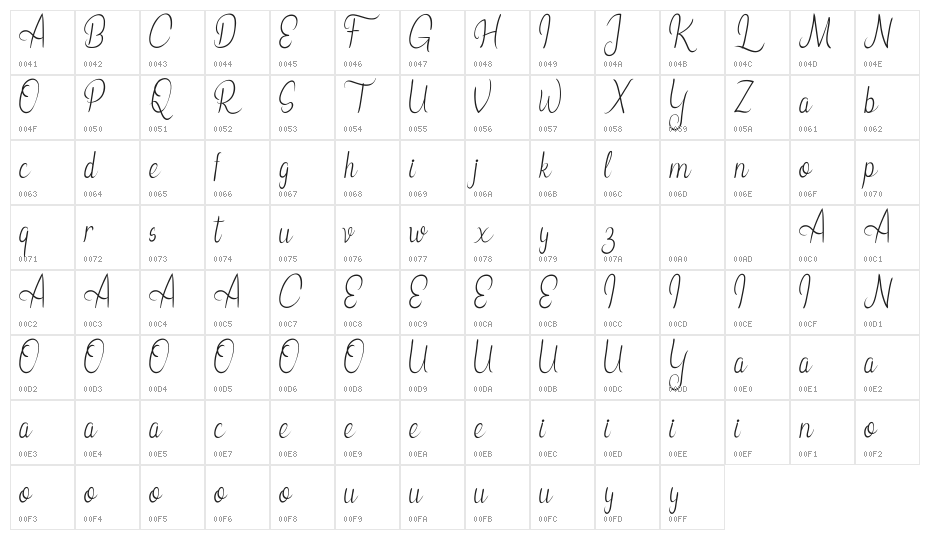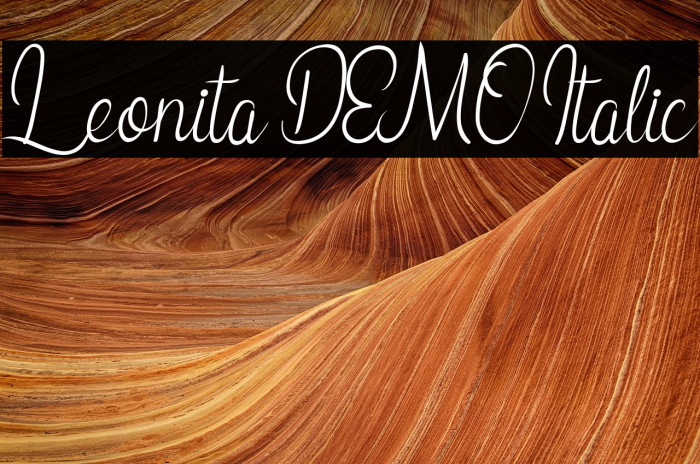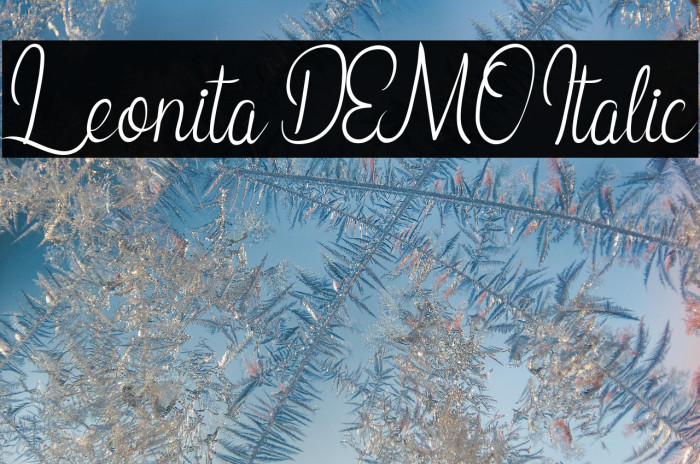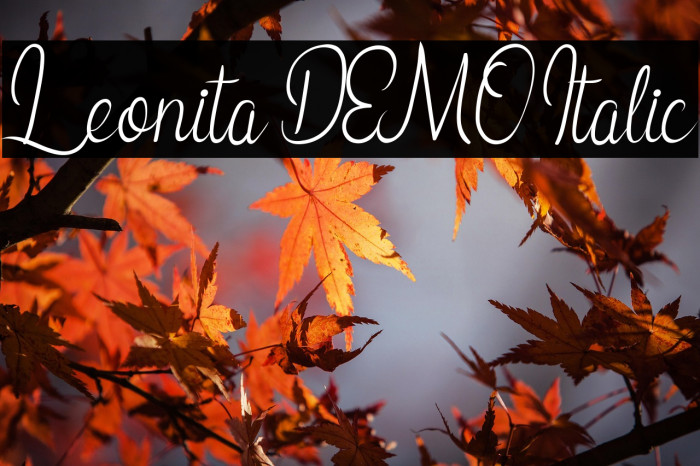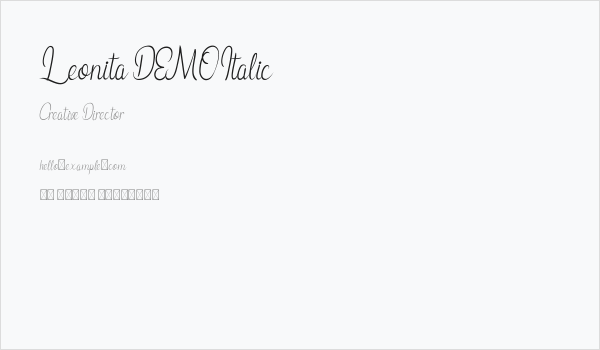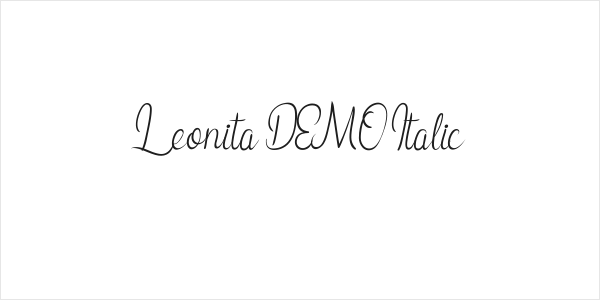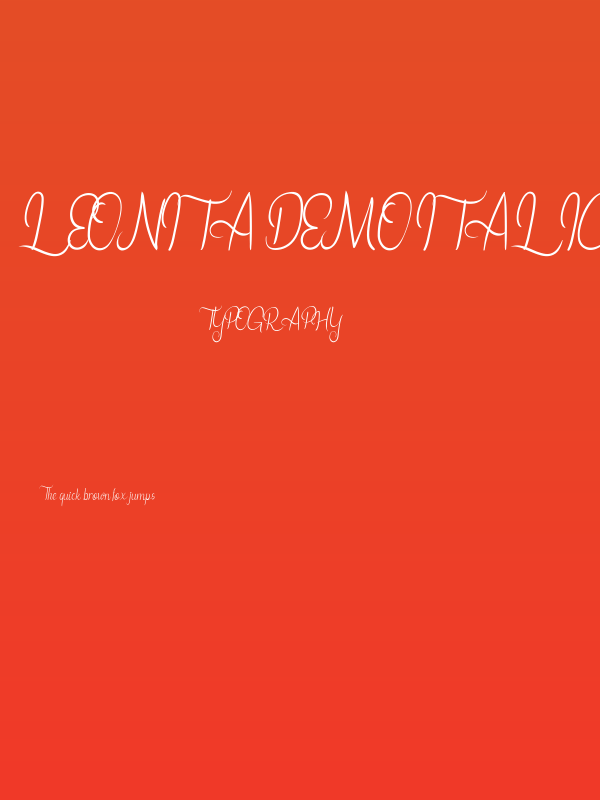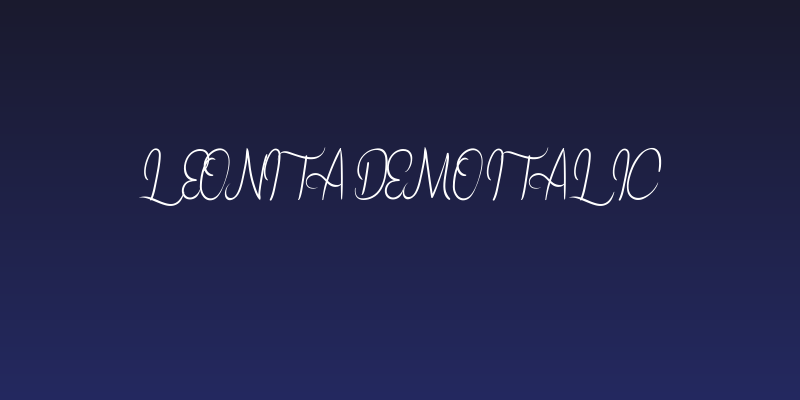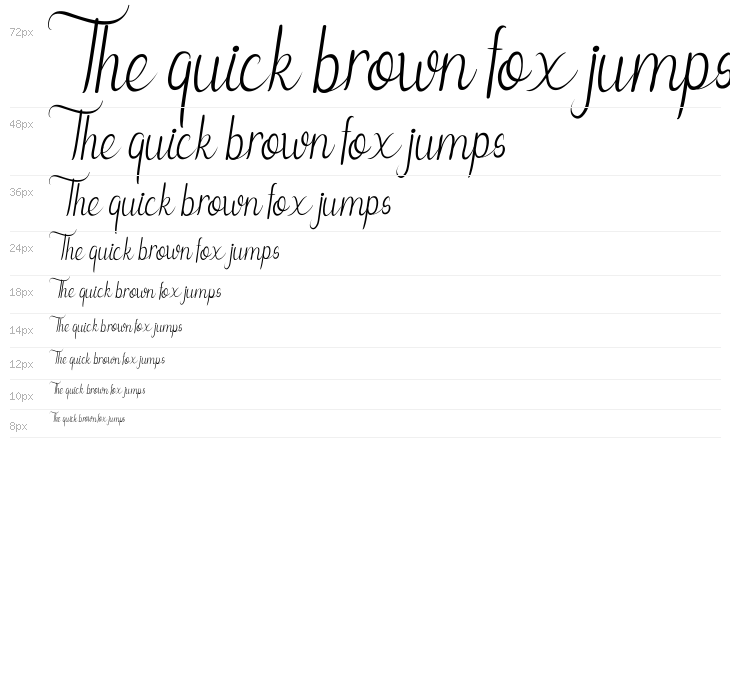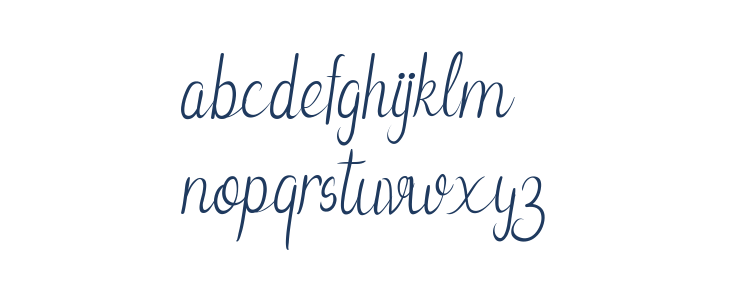
Leonita DEMO Italic Font
Leonita DEMO Italic Description
This elegant script font features a flowing, cursive style with a sophisticated and graceful appearance. The characters are connected, creating a seamless and fluid look that is both stylish and legible. The uppercase letters are tall and slender, with delicate loops and swirls that add a touch of flair. The lowercase letters maintain a consistent flow, with smooth curves and subtle variations in stroke width. The font's italic nature enhances its dynamic and lively feel, making it suitable for a variety of creative applications. Its overall design exudes a sense of refinement and charm, perfect for projects that require a touch of elegance.
| Overall Style | Elegant, Sophisticated |
| Proposed Projects | Ideal for wedding invitations, elegant branding, greeting cards, and upscale packaging. |